Efforts being made to reaffirm Arab identity at corporate level
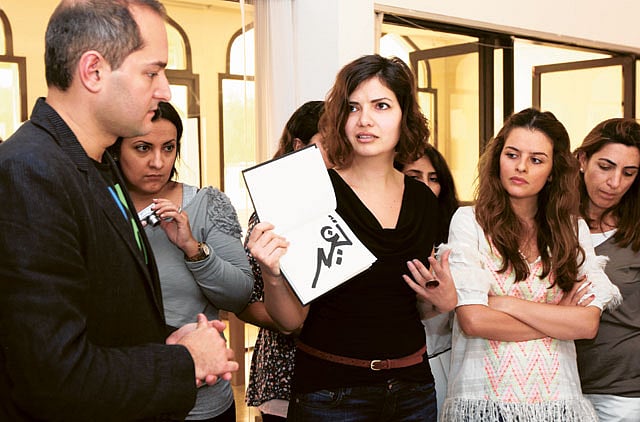
Dubai: "There aren't enough Arabic typefaces," said typographer Tarek Atrissi.
It wasn't so much an observation as it was a declaration. One that blatantly shouts out — there is high demand for Arabic fonts, less supply.
This fact is singlehandedly encouraging type designers and graphic design students in the Middle East to do something about it. That something was clear from Atrissi's recent workshop titled Arabesque, Identity and Arabic Typography, organised by Nuqat Design Conference 2012, where students were sketching forms of Arabic lettering.
"There is a boom in branding. For unique branding — whether it is signage or a logo — you need a unique typographic voice. Companies are searching for unique typefaces. Companies are trying to reaffirm the Arab identity on a corporate level," Atrissi told Gulf News.
The co-host of the workshop, type designer Nadine Chahine, added: "Companies in the Gulf have more budgets for branding. Given that typeface is an integral ingredient [in branding], there is new interest in Arabic type. Now some of these students at the workshop may be able to expand the letters they have sketched into a system and further develop it into a font."
Both lecturers are industry experts.
Chahine works at Linotype, Germany, a global provider of superior quality typographic products and services. She has more than 18 fonts to her credit including the best-selling Frutiger Arabic and Koufiya.
Growing industry
Through the workshop Chahine and Atrissi taught approaches to Arabic typography. "To design good typefaces, it is important to understand calligraphic tradition. You have to look at the styles, the characteristics of each [style] and how you can interpret them," explained Atrissi.
"Everything we do is based on this calligraphic skeletal structure. Once you understand the skeletal system, you can dress it differently — sometimes conservative, sometimes modern," said Chahine.
Graphic design student Danah Behbehani had travelled from Kuwait to attend the workshop. She told Gulf News: "The graphic design industry in the Middle East is growing. There aren't enough fonts to use and complement branding for new business, publications, etc. I know of only ten Arabic fonts compared to English — too few. It is very ‘in' coming up with new fonts."
Another student print-based designer Farah Behbehani, also from Kuwait, said that the Arabic typeface has come of age. She told Gulf News: "It is a technical field. There have been so many designers in the West designing the English typeface, but in the Arabic world, not many or of good standard, until recently. Only a few have had the discipline to pursue this career."
Of the rise in the Arabic typeface Chahine and Atrissi said the future is bright: "Arabic font is getting cleaner and more modern. We are witnessing liberation with new designs. Technology has helped too in terms of software and support," said Chahine.
Atrissi expects more experimentation as people get trained. "This translates into a brighter future in the development of Arabic type," he said.
When asked whether a single Arabic typeface will rise to ubiquity like the English type Helvetica, Chahine mentioned that she designed the Arabic companion to the iconic Neue Helvetica typeface.
"In Arabic, the situation is a bit more complex. When Arabic calligraphic styles were developed, they were developed for specific sizes in mind. You can use Helvetica for text and headline, which is why you see it in software and emails as well as in big logos like GAP and American Airlines. Helvetica can cross the boundaries between headline and text. In Arabic, you can't do that," she said.
The field is still in an inchoate state, and according to Chahine and Atrissi who are working on a book titled Right to Left: Typographic Dialogues on Arabic Literature, one can only look back 10-15 years from today to judge what was successful.
‘Unpredictable'
"Every designer has their own intuition as to what is good or not. There is no science. It isn't always easy to predict how some design elements become iconic and become part of our culture. Take the ‘I love New York' logo that became part of a bigger cultural element, and has inspired countless knock-offs. The unpredictability is the interesting part," he said.
One yardstick is sales said Chahine: "At Linotype, see a big demand for typefaces that are modern and non linear."
On a related note, she said typeface shouldn't ignore the legibility aspect. "We have to ask designers, educators and typographers and even the publishing industry at large — what style of Arabic helps with reading? Design in that sense is very important but it should not attract attention to itself. You should engage with the content and not the way the letters are dressed."